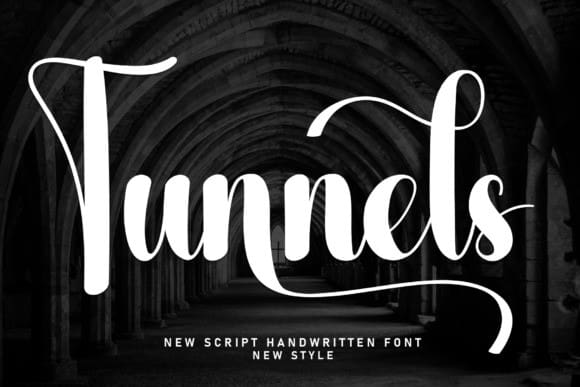
Tunnels Script Font
Tunnels Script Font: A captivating and adventurous script typeface that takes you on a journey through its intricate and intertwined letterforms. With its unique and expressive design, Tunnels Font adds a sense of mystery and excitement to your designs. Perfect for logos, branding, and creative projects that demand a touch of intrigue and exploration.